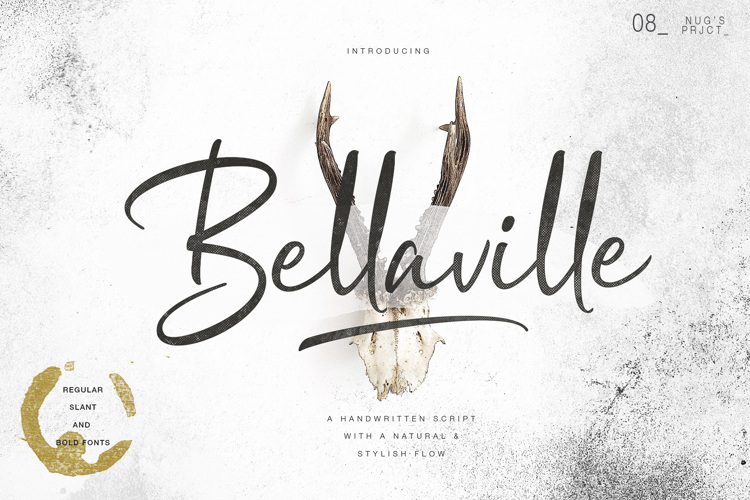
Bellaville Demo Font
The Bellavile is a striking handwritten font. It has natural curves and is perfect for adding a personal touch to your branding, watermarks, logos, and much more!